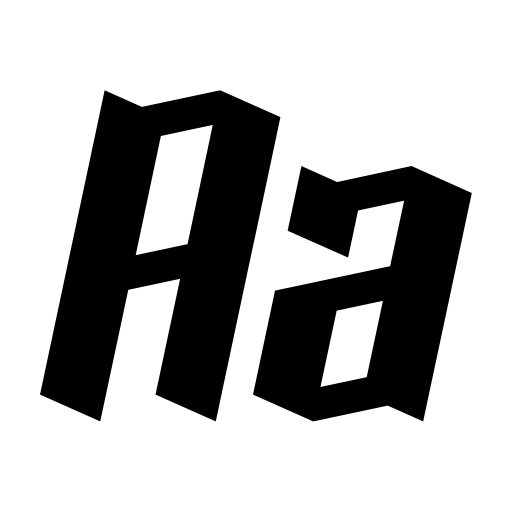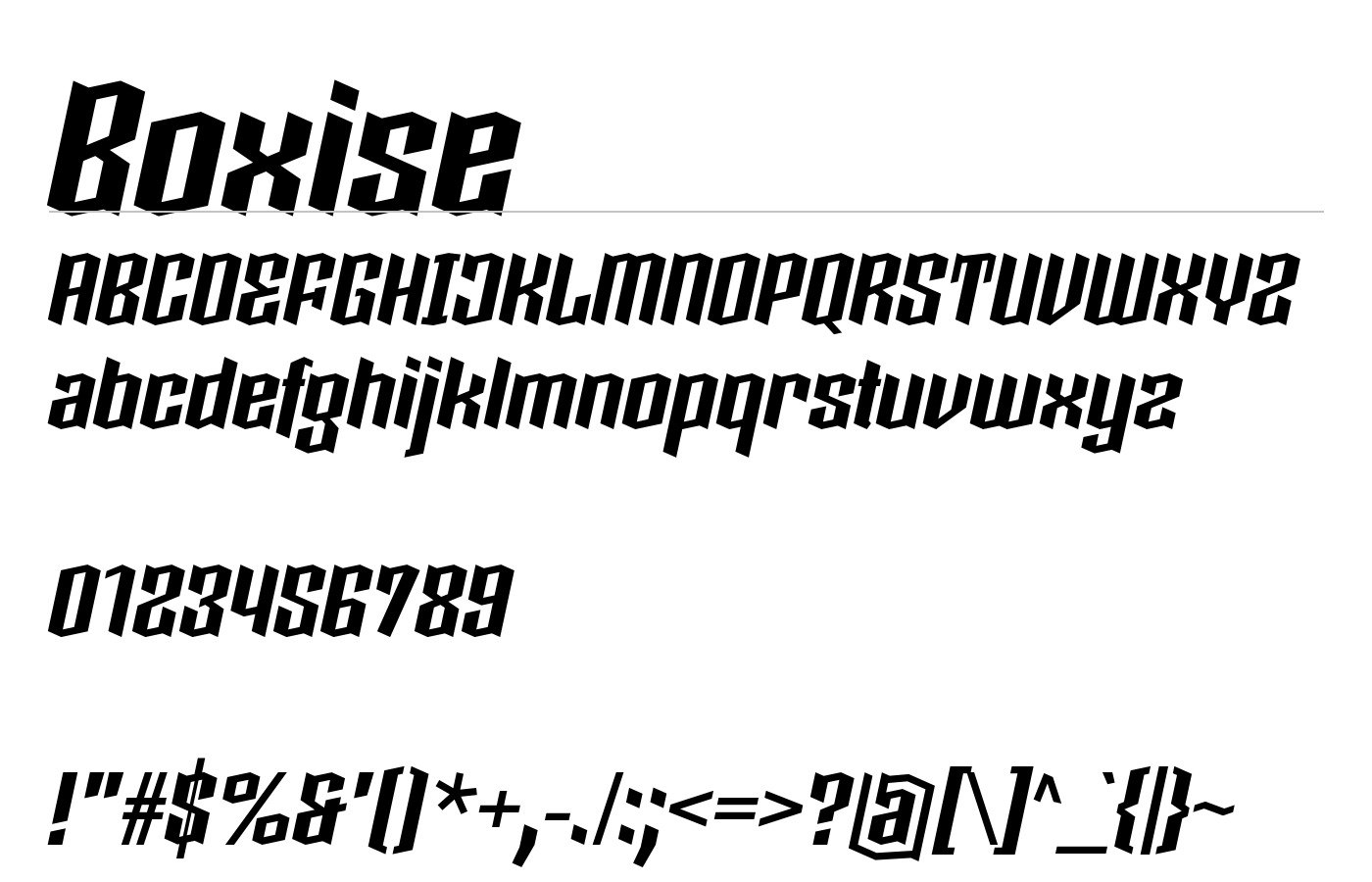
Boxise is a bold, condensed sans serif font with a distinct angular and geometric style, featuring sharp edges and a slight italic slant that adds dynamic energy. Its high contrast between thick and thin strokes combined with unique, stylized letterforms creates a modern, edgy look ideal for striking headlines, branding, and projects aiming for a strong, urban feel. This font works best in display uses where its bold personality can stand out, such as posters, logos, or fashion-related designs.
Boxise Font